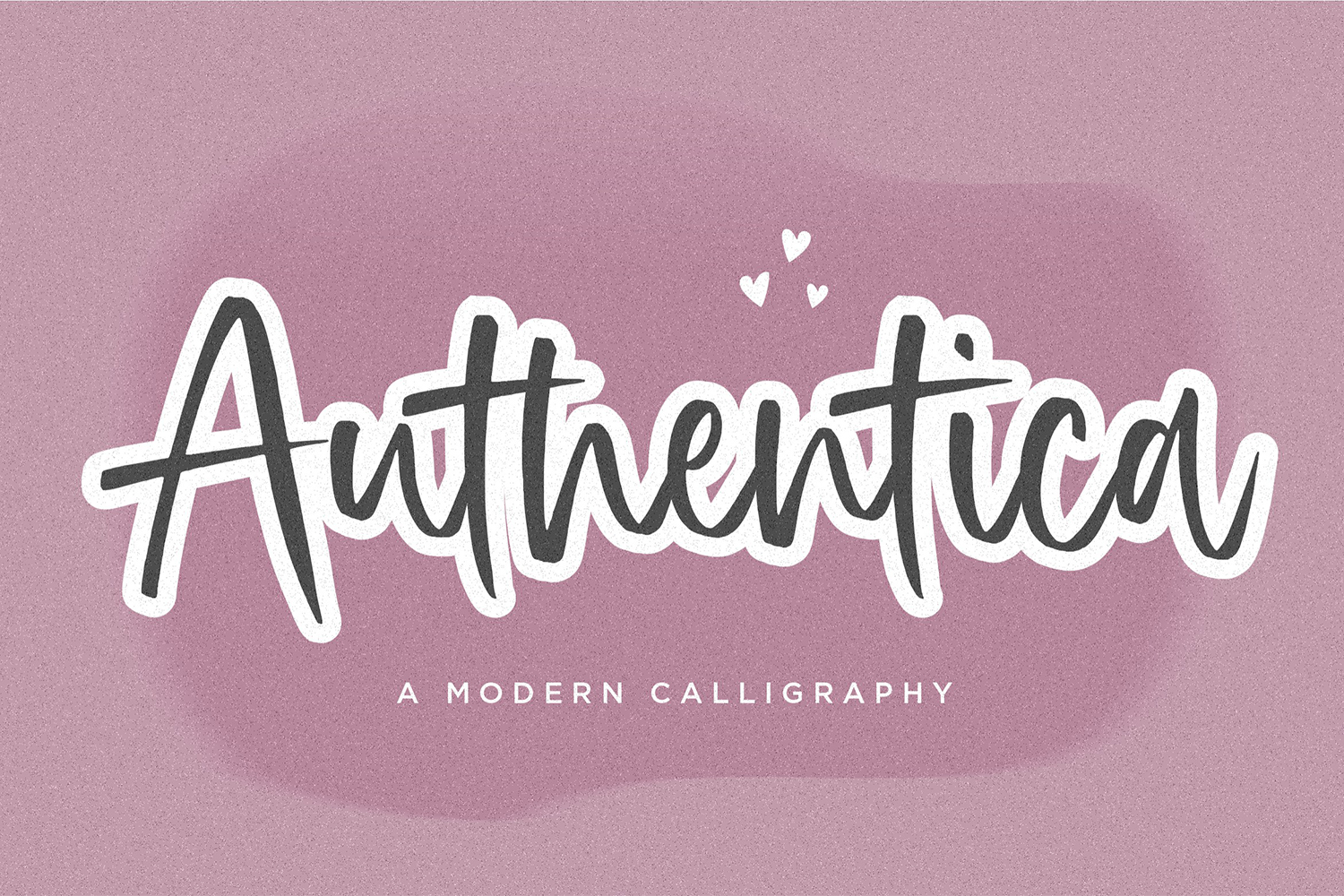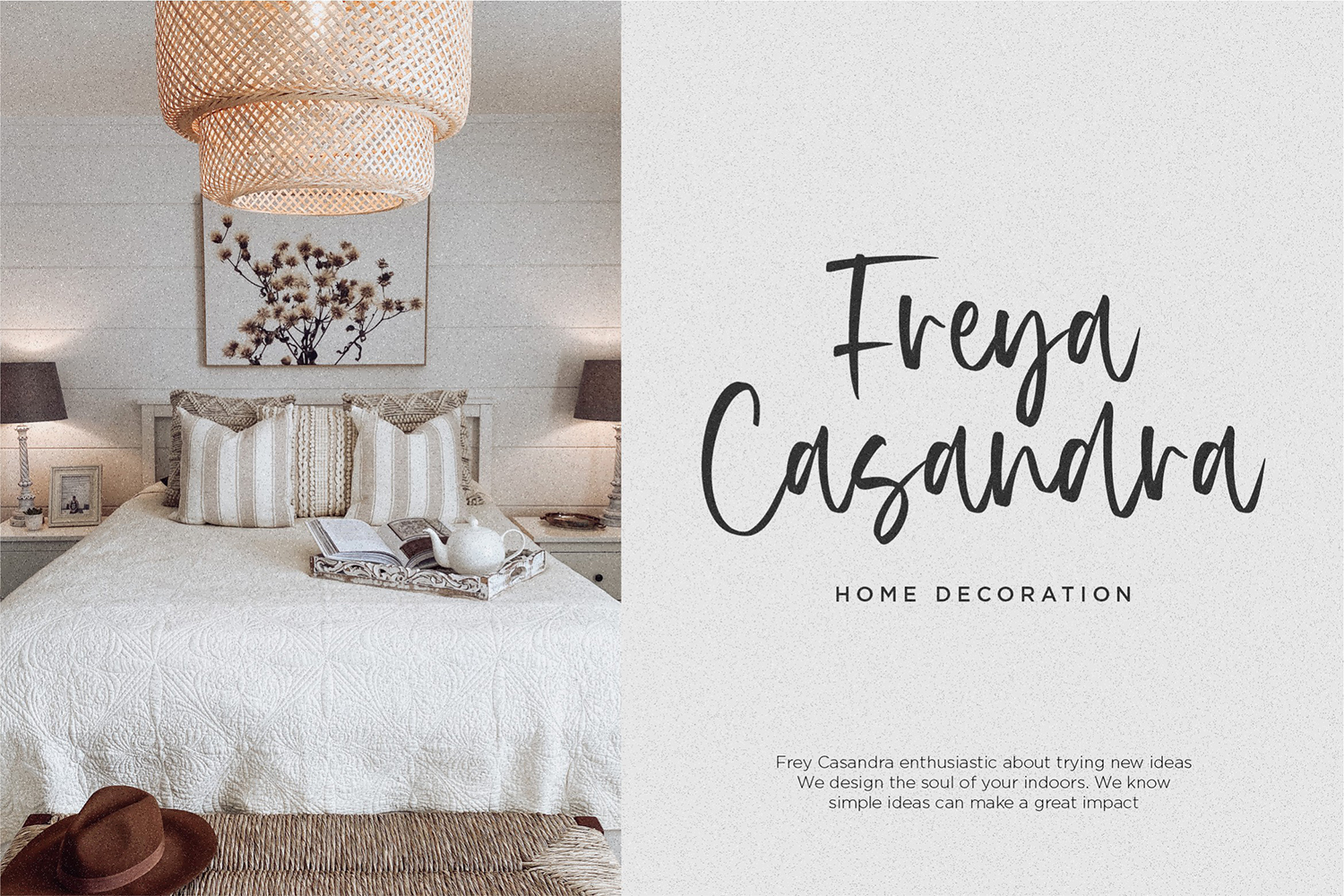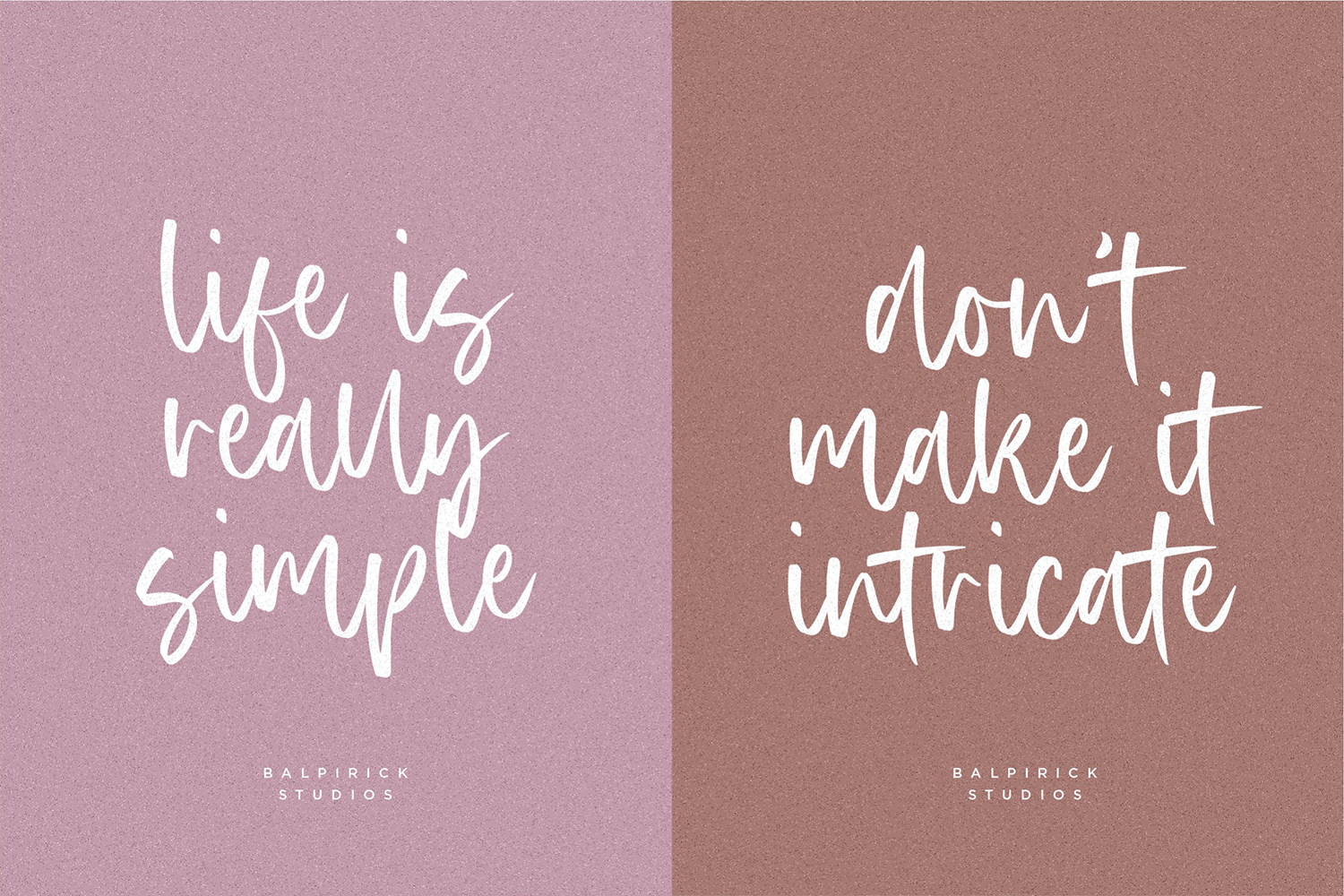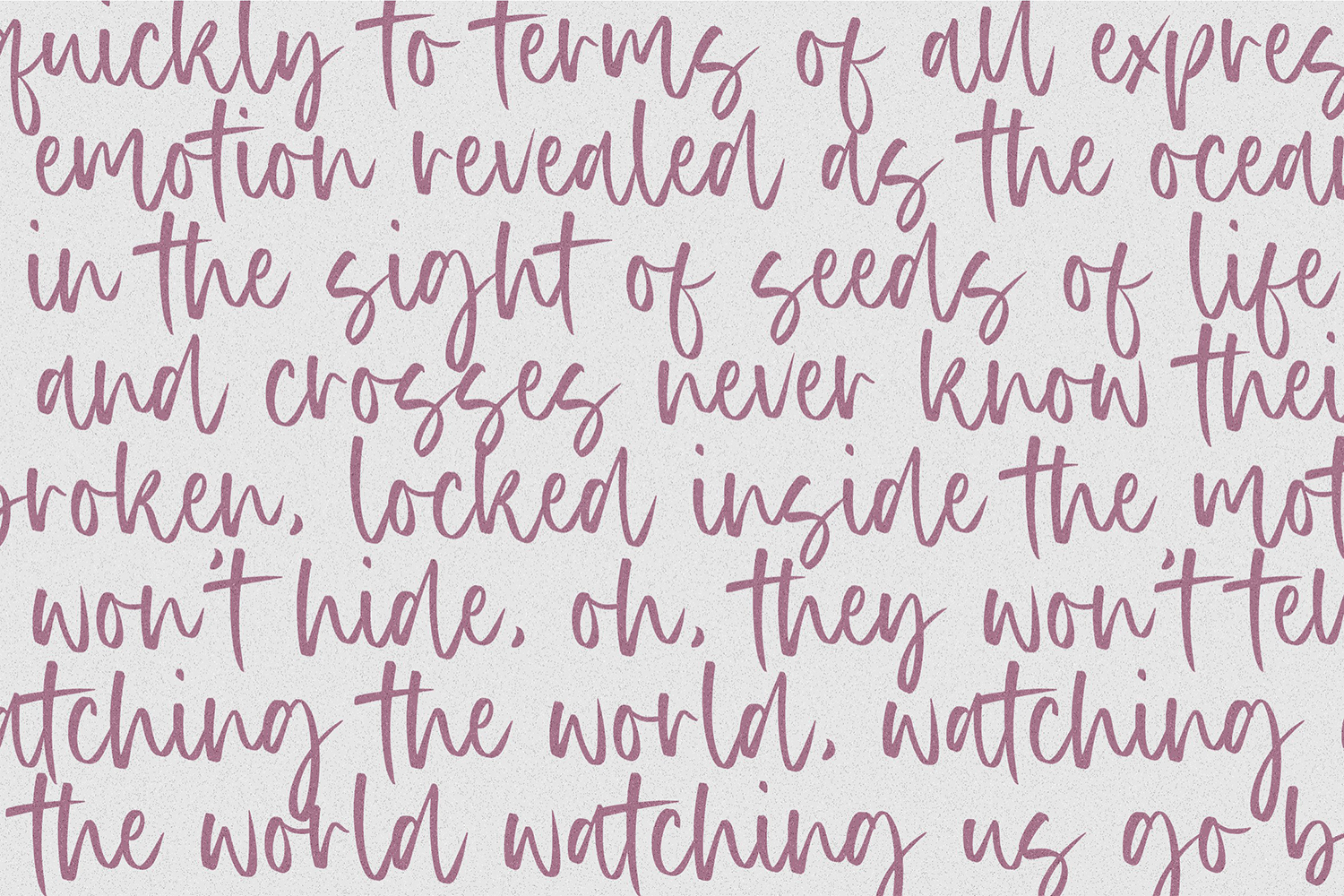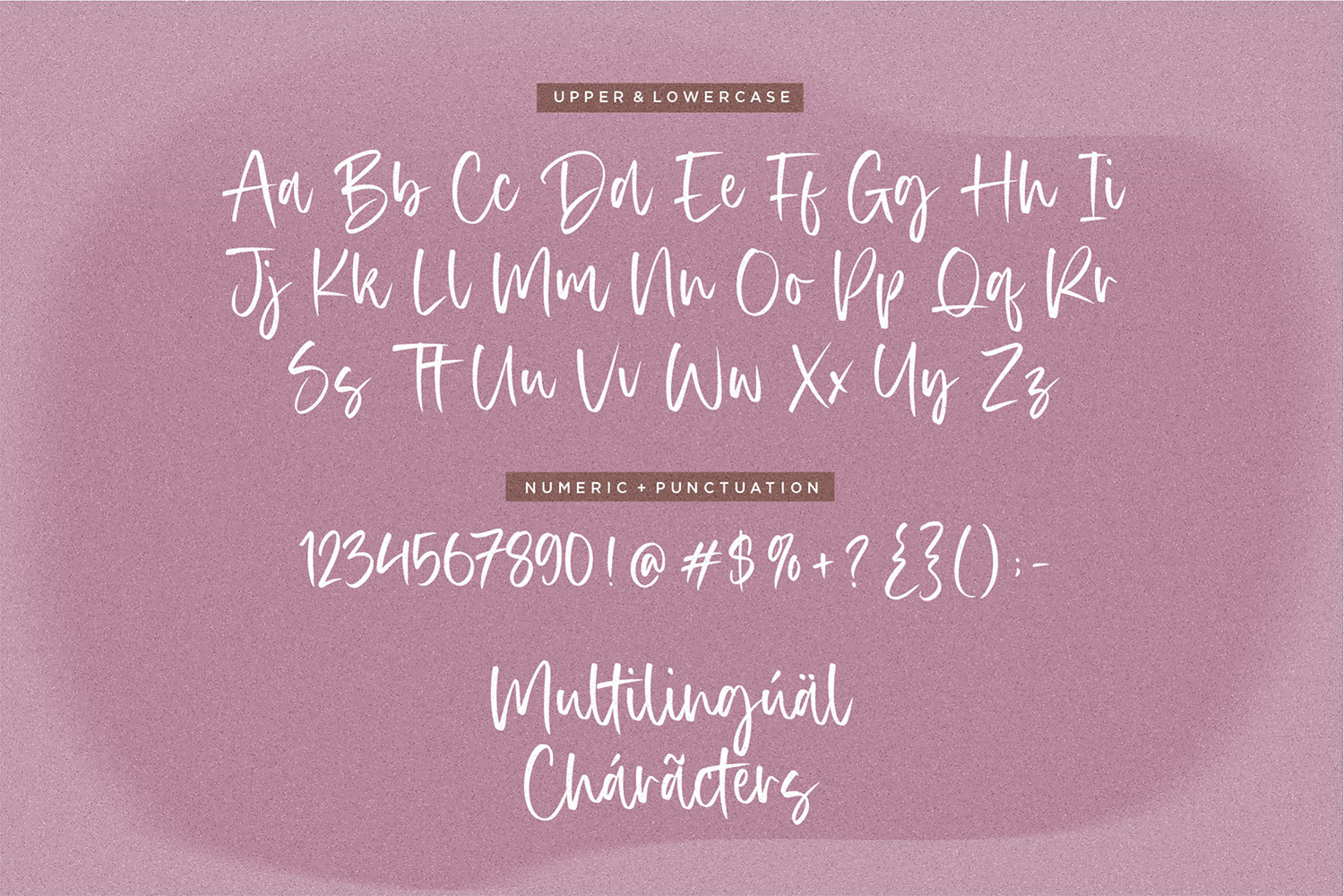
Authentica Free Font
Authentica Free Font is a typeface that exudes a charming and authentic vibe. Its script handwritten style gives it a warm and welcoming feel, like a handwritten note from a friend. The letters flow together seamlessly, creating a natural and organic look that is both beautiful and legible. Whether you’re using it for a personal project or a professional one, Authentica Free Font will add a touch of personality and character to any design. It’s perfect for everything from wedding invitations to product packaging, and its versatility makes it a go-to choice for designers and creatives alike. With its unique style and effortless grace, Authentica Free Font is sure to make any project stand out from the crowd.